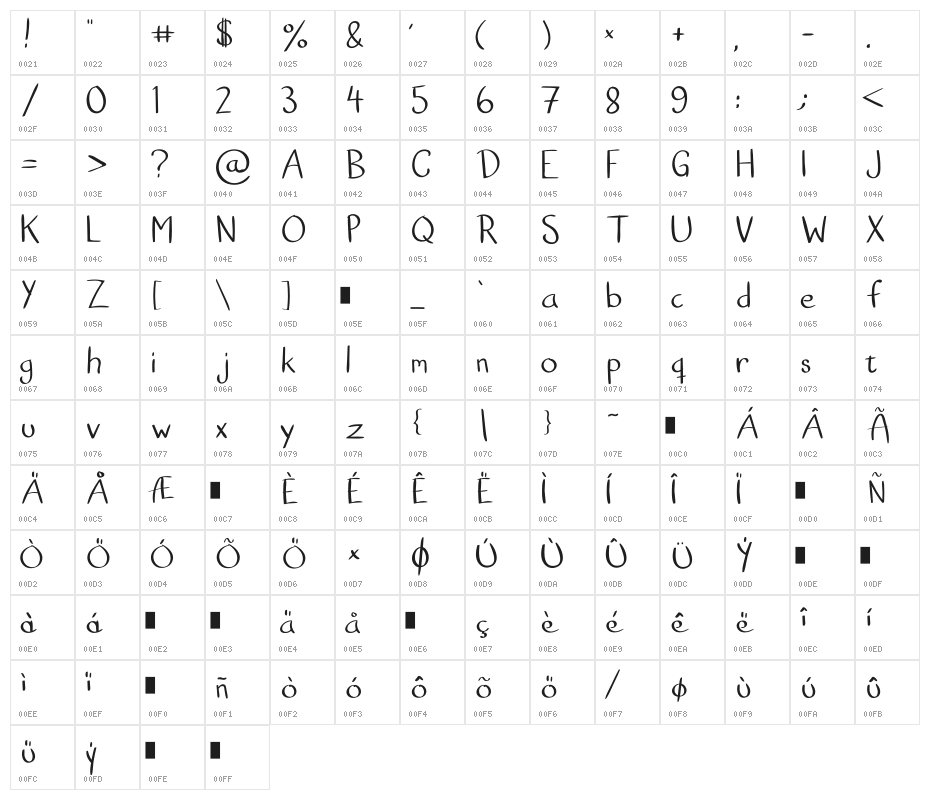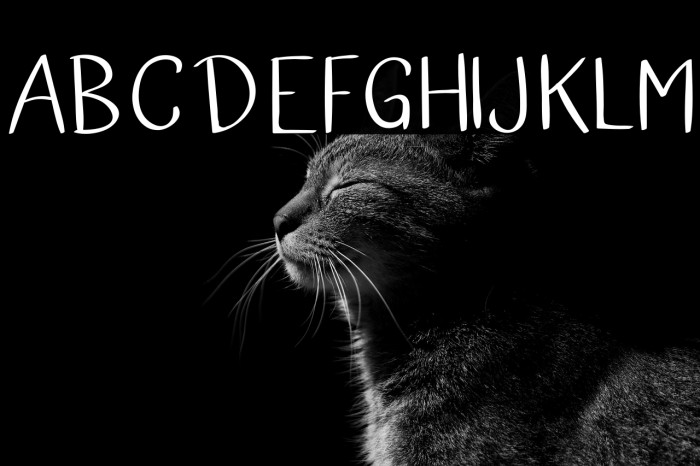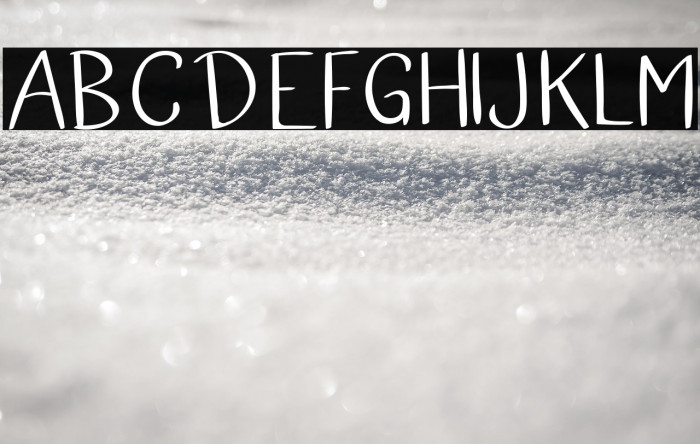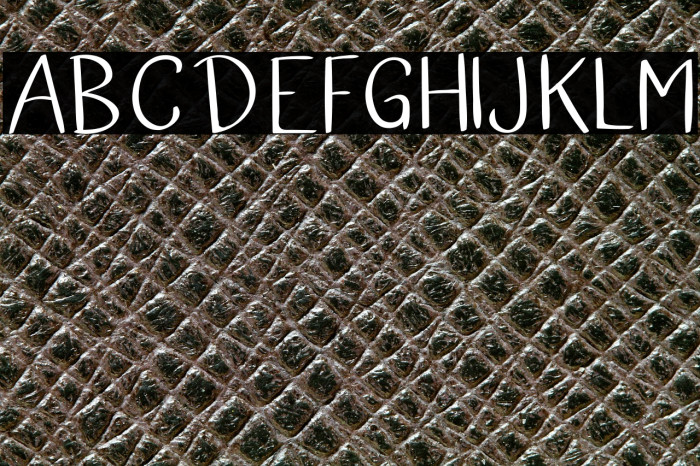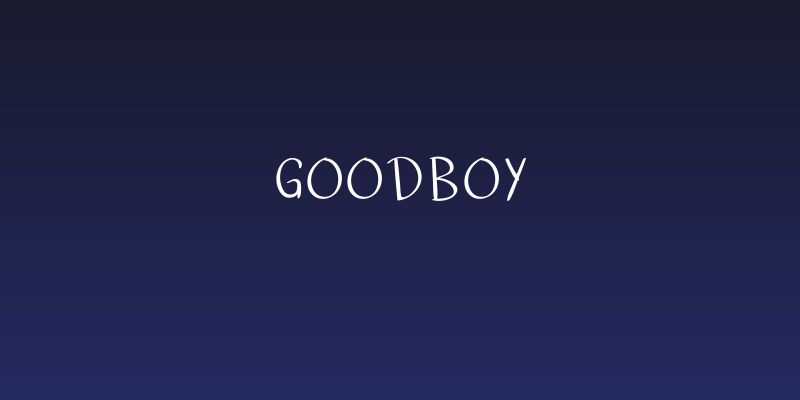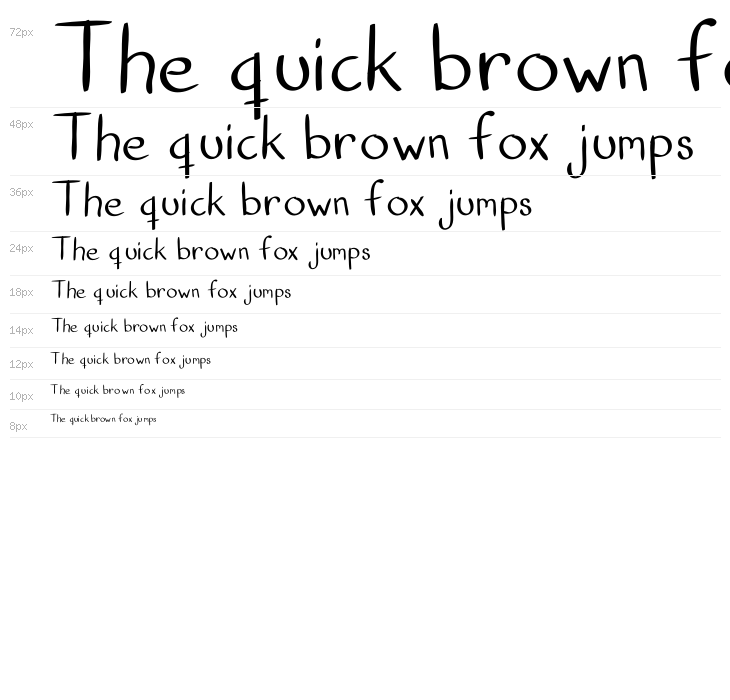
Goodboy Font
Goodboy Description
This font features a playful and informal handwritten style, characterized by its smooth curves and slightly irregular letterforms. The uppercase and lowercase letters maintain a consistent flow, giving a sense of movement and energy. The numerals and special characters complement the alphabet with a similar casual aesthetic. The strokes are moderately thick, providing good legibility while retaining a friendly and approachable appearance. This font is ideal for projects that require a personal touch, such as greeting cards, invitations, or children's books. Its whimsical nature makes it suitable for creative and artistic endeavors.
| Overall Style | Playful, Casual |
| Use Case | Headlines, Informal Text, Creative Projects |
| Proposed Projects | Ideal for greeting cards, invitations, children's books, and creative projects. |